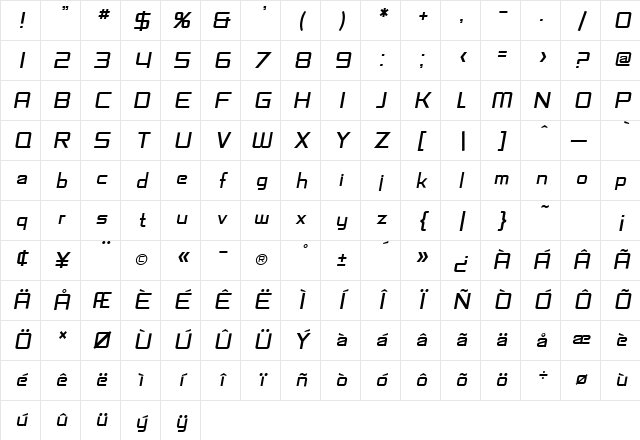
SF Fedora Titles Italic Free Font
SF Fedora Titles Italic
SF Fedora Titles Family
Design Context for SF Fedora Titles
SF Fedora Titles is a composed and adaptable typeface that performs quietly and consistently across a wide range of design contexts. The slanted form adds forward momentum and visual energy.
Pro Tip: Use SF Fedora Titles for emphasis, pull quotes, and subheadings where its slanted energy can add rhythm to the layout.